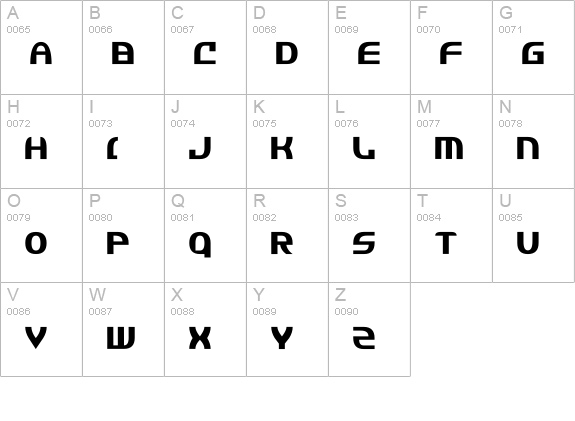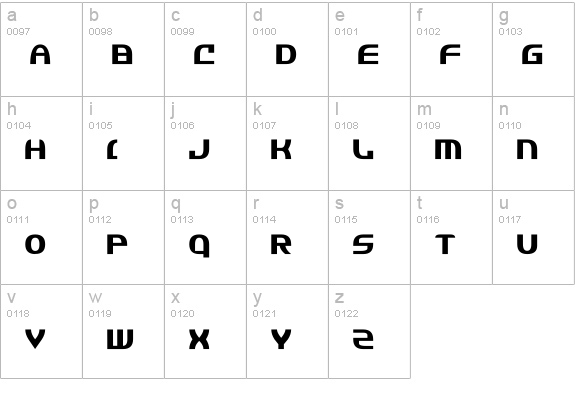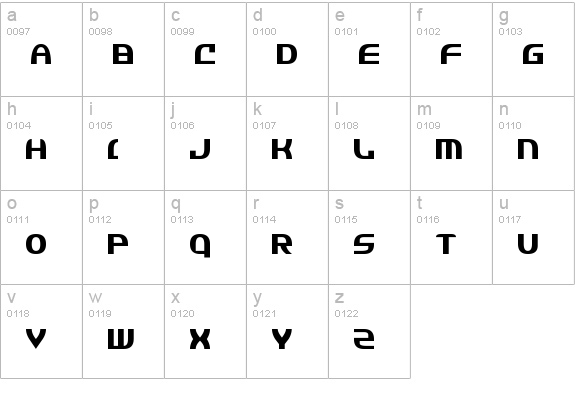
Ewok Font Details
Introducing the charming and whimsical Ewok font, a delightful addition to any creative project. With its playful curves and endearing character, Ewok captures the essence of childhood wonder and imagination. This font is perfect for adding a touch of enchantment to invitations, greeting cards, logos, and more. What sets Ewok font apart is not only its captivating design, but also the fact that it is completely free. Yes, you read that right - Ewok font can be downloaded at absolutely no cost from FontsMarket.com. We believe in making high-quality fonts accessible to everyone, and Ewok font is no exception. Whether you're a professional designer looking for a unique typeface or a hobbyist searching for a font to bring your DIY crafts to life, Ewok font is the ideal choice. Its versatility allows it to shine in a variety of applications, from children's books to party decorations. Don't miss out on the opportunity to enhance your creative projects with the adorable Ewok font. Download it today at FontsMarket.com and let your imagination run wild. Remember, with Ewok font, the possibilities are endless - and best of all, it won't cost you a dime.